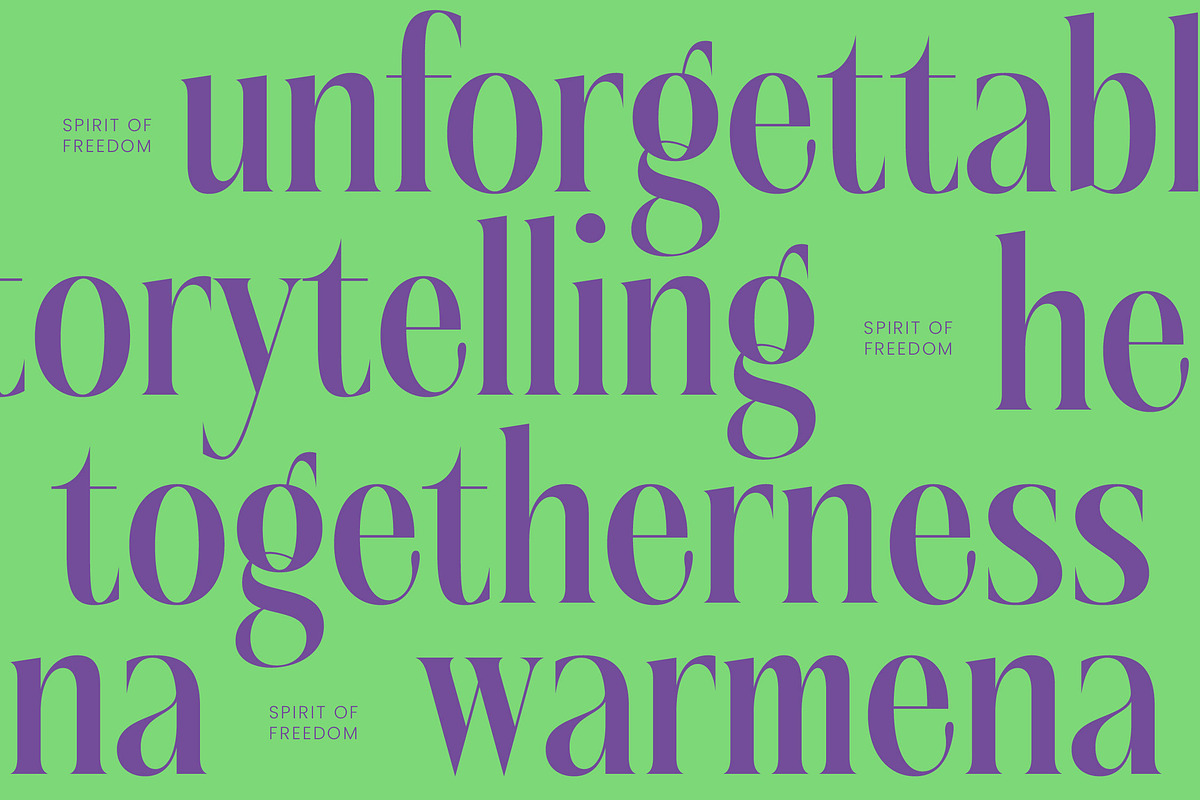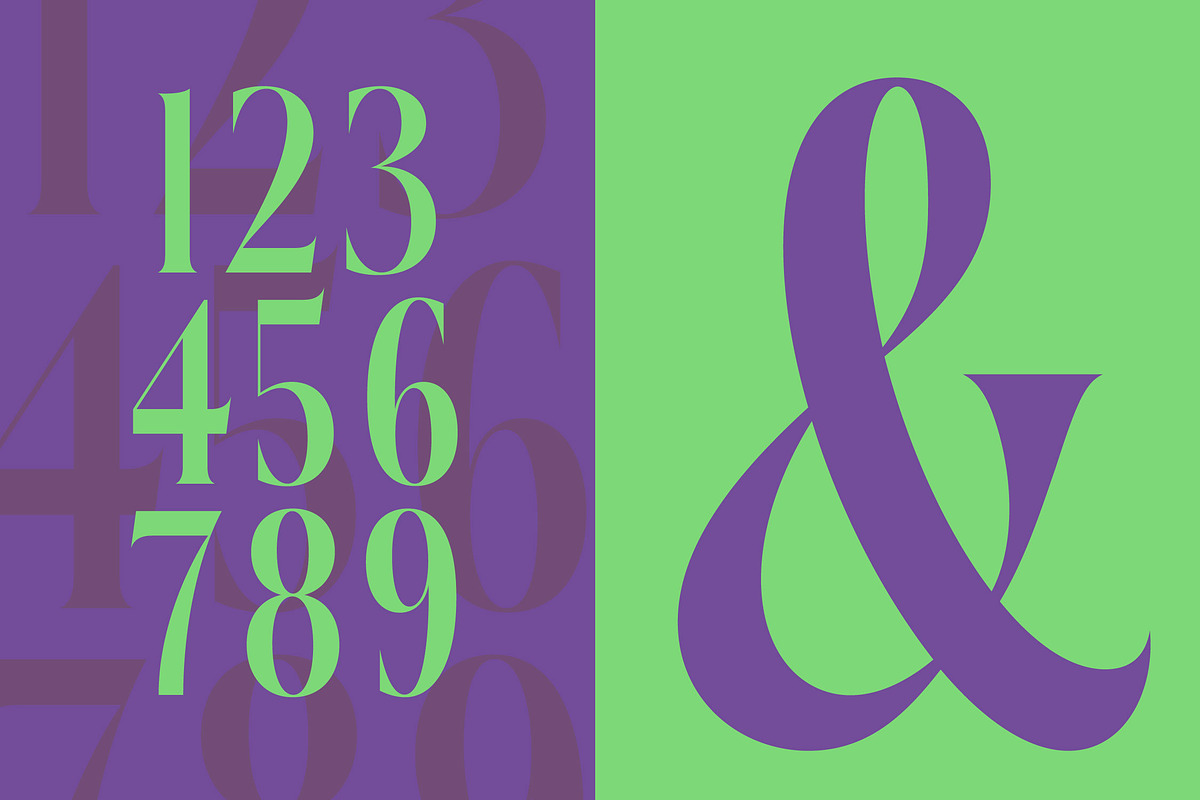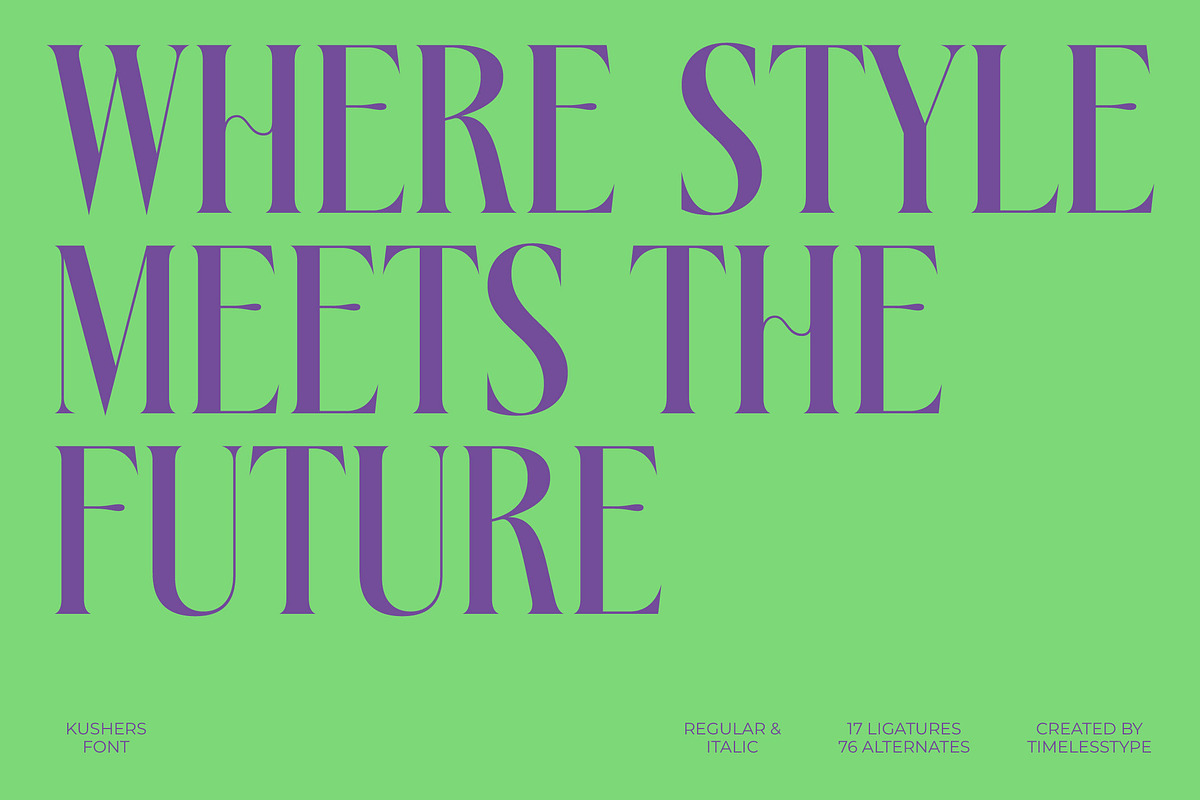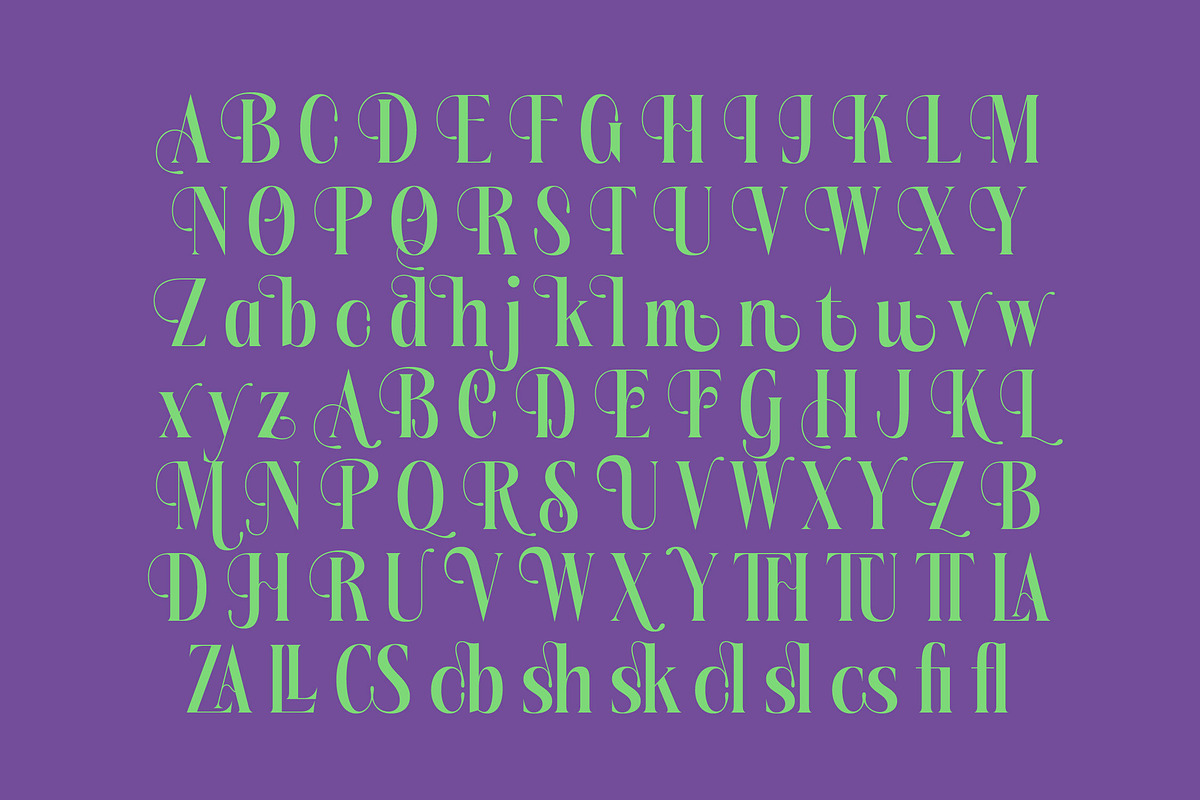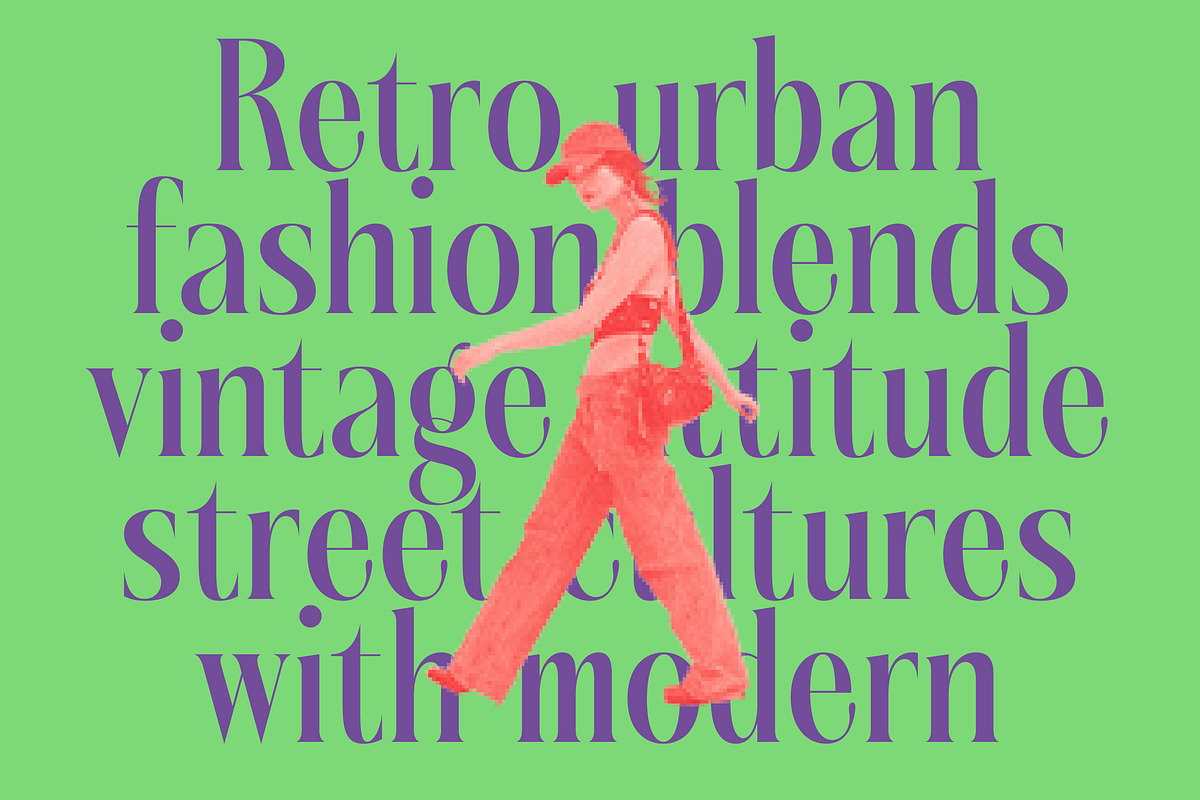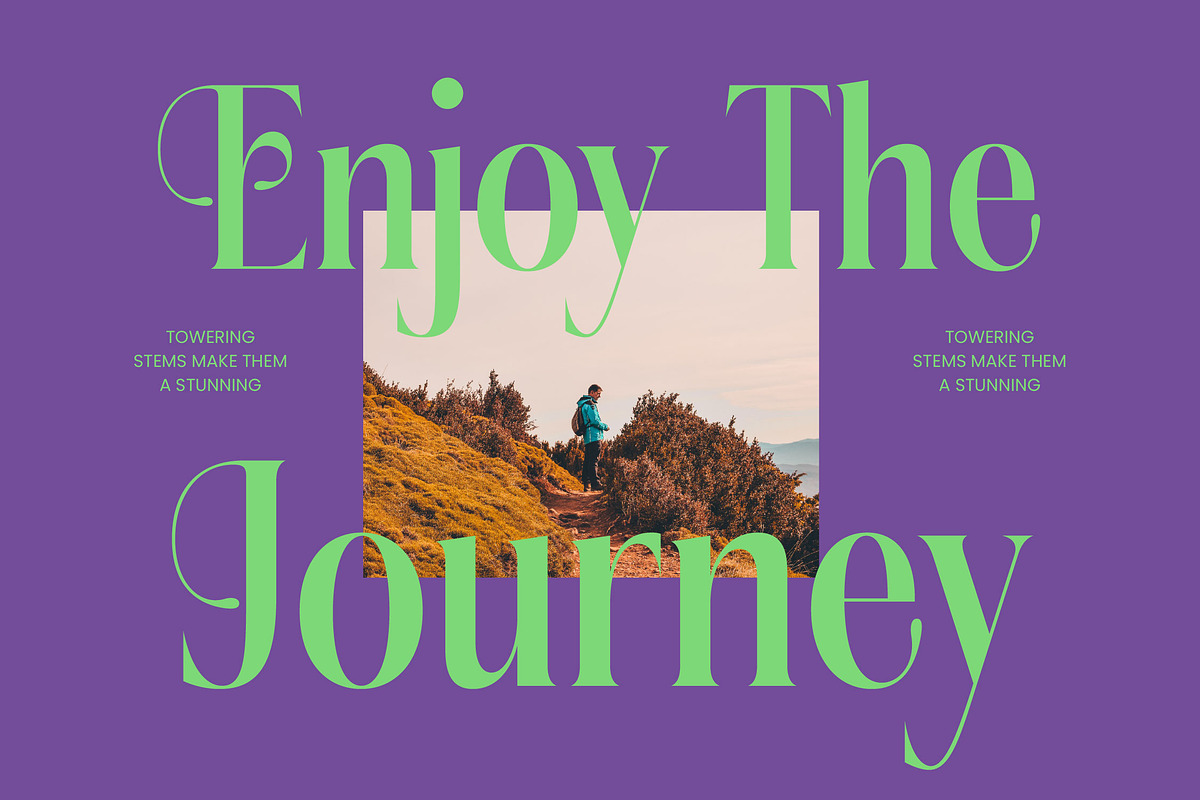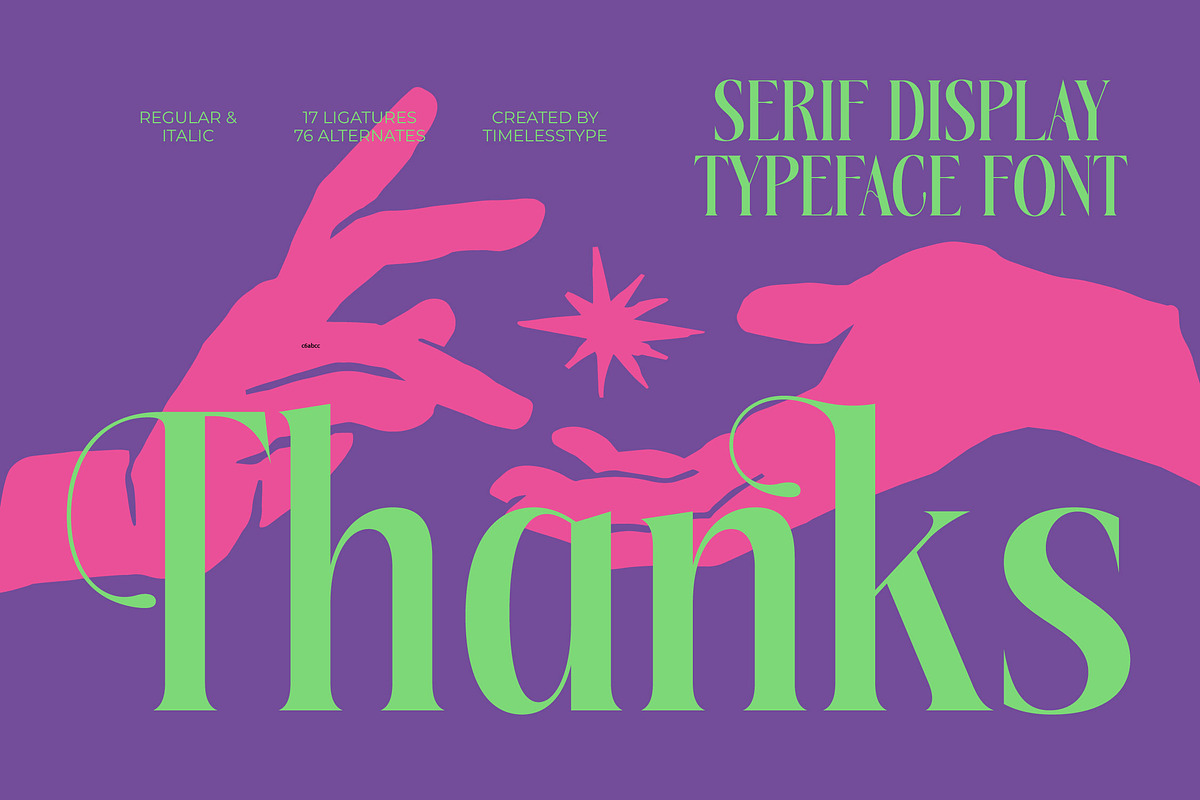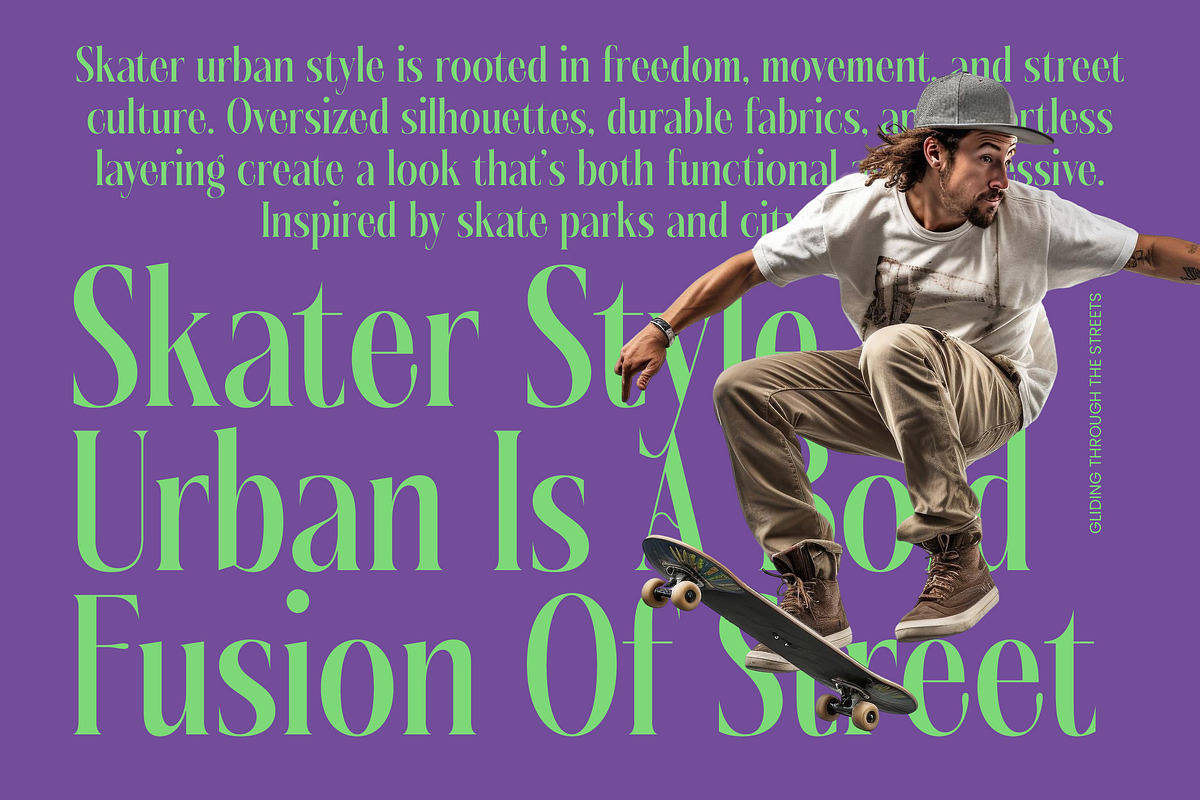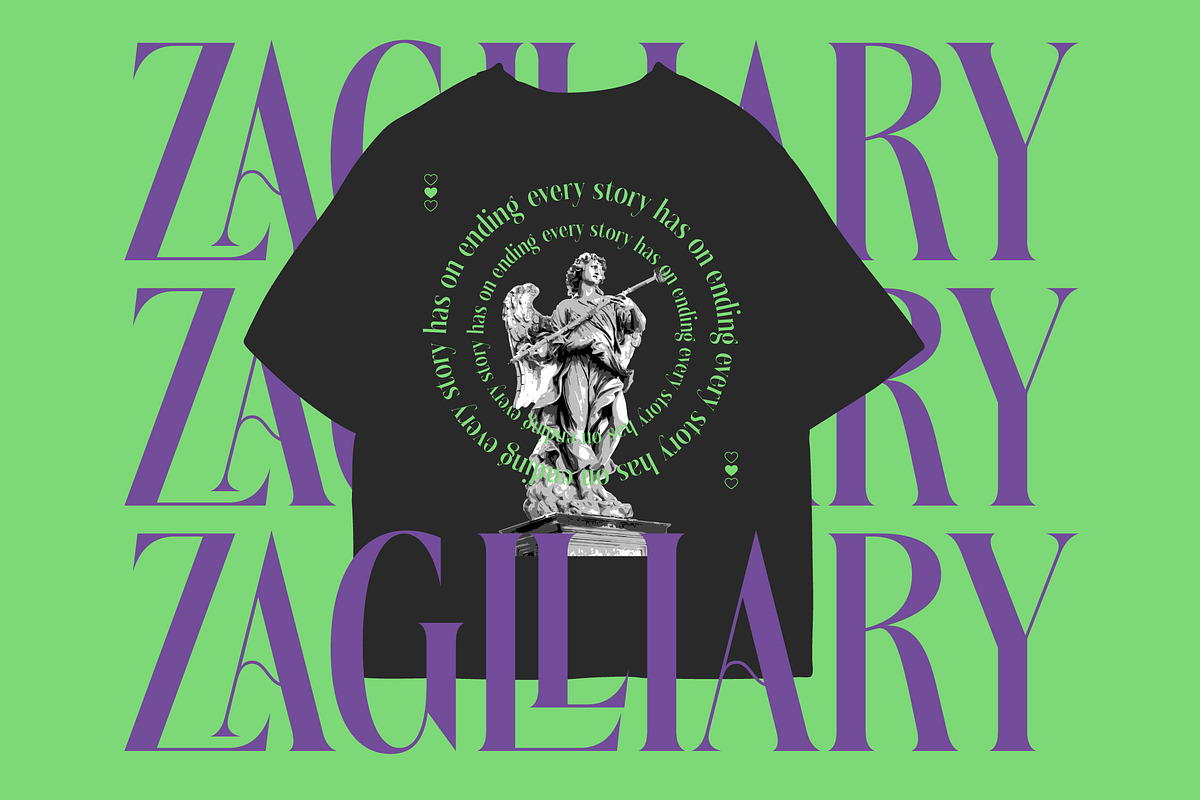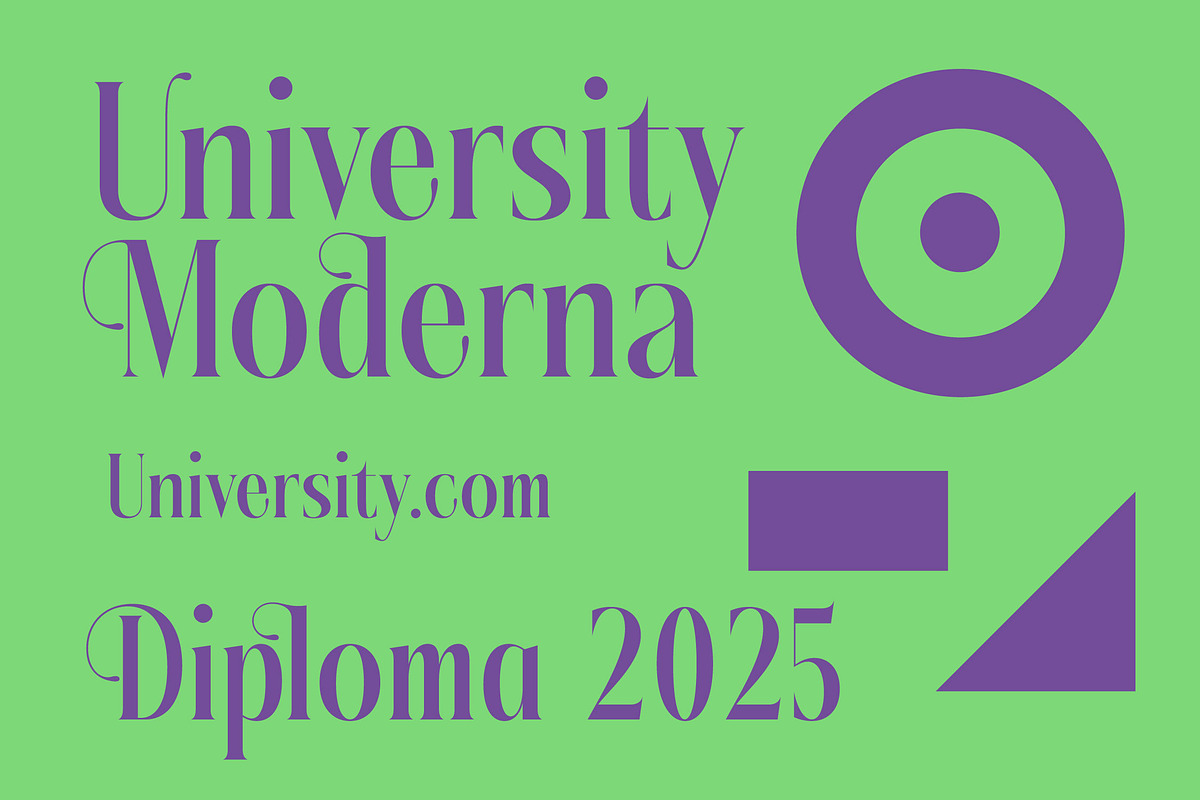
Kushers Modern Serif Display Font
Elevate your creative vision with Kushers, a typeface that dances between timeless elegance and contemporary edge. This font transforms every word into a piece of art, commanding attention with its graceful curves and striking presence.
Inspired by the fusion of vintage art nouveau aesthetics and psychedelic dreamscapes, this typeface captures a sense of mystery and magic. It evokes the feeling of a high-end fashion boutique or a hidden midnight garden where every letterform tells a secret story.
Defined by its modern serif display qualities, this font offers unparalleled luxury typography for those seeking a high-contrast serif with soul. It functions as a powerful editorial font that ensures a lasting branding impact across digital and print media alike.
Perfectly aligned with the current modern serif trend, this typeface meets the demand for editorial display fonts that feel both classic and experimental. It is the ultimate choice for designers looking for character-driven typography that breaks away from the mundane and embraces the extraordinary.
This versatile font is the perfect companion for high-end logo design and comprehensive branding projects that require a touch of class. Whether it is used for bold editorial headlines, sophisticated packaging, ethereal wedding invitations, or avant-garde fashion spreads, it delivers a flawless finish.
Packed with creative potential, the set includes a vast array of ligatures and alternates to customize every glyph, alongside elegant swashes for a custom-lettered look. With full multilingual support and a wide range of international characters, it is ready for global creative endeavors.
Numerals
Ligatures and Alternative Style Stylistic Set